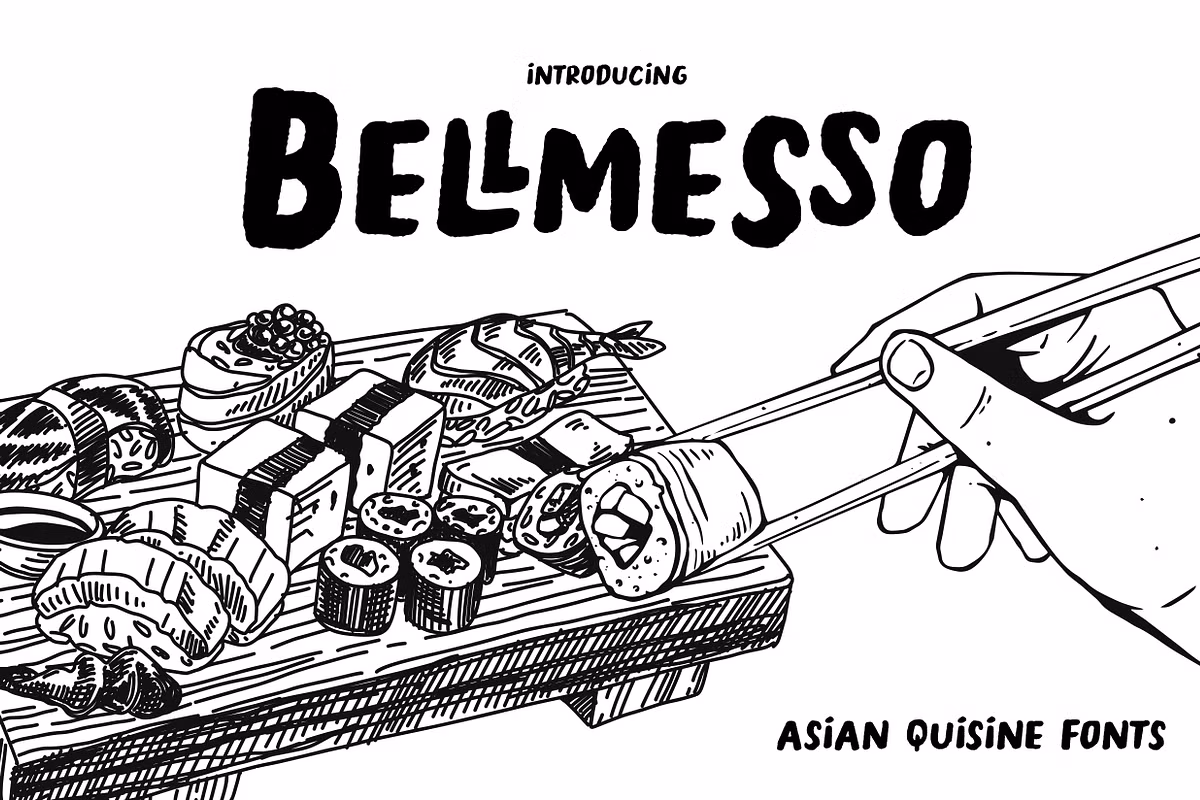
You must purchase this font for commercial use. However, you can download Bellmesso - Asian Cuisine Fonts Free Download for testing purposes. Bellmesso is a unique and elegant font inspired by Asian cuisine and culture. Its distinct, fluid strokes evoke the rich traditions and artistry of Asian calligraphy, making it perfect for food-related branding, restaurant logos, menus, packaging, and more.
With its clean yet artistic design, Bellmesso brings an authentic, cultural feel to your projects, ideal for anything related to Asian cuisine or culinary art. Whether you're creating a restaurant brand, designing a food delivery app, or crafting packaging for an Asian-themed product, this font will add a touch of sophistication and elegance to your typography.